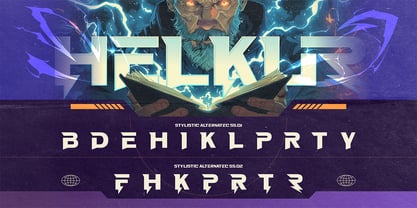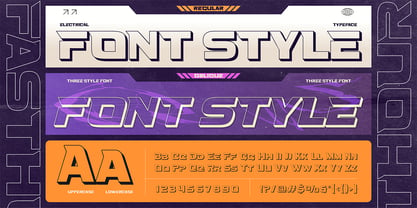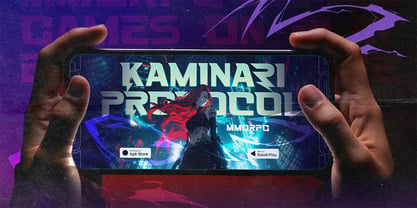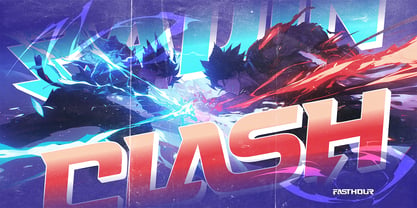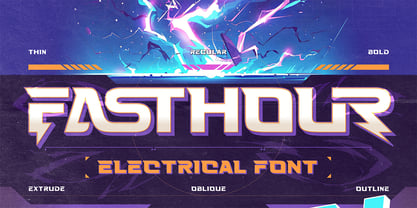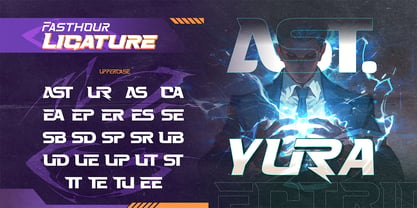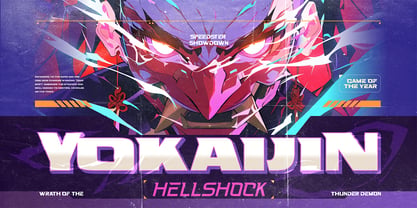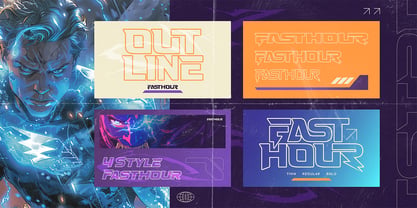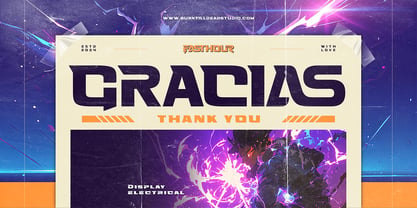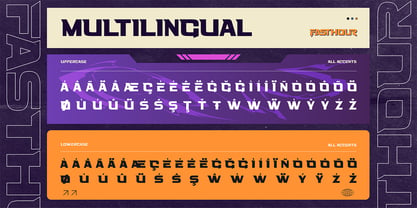
Fasthour
La familia tipográfica Fasthour fue diseñada por Eric Kurniawan y publicada por Burntilldead. Fasthour contiene 18 estilos y opciones de paquete familiar. Más información sobre esta familia
Fasthour is a high-energy display font inspired by electric power, speed, and motion. Its sharp cuts, angled forms, and bold structure create a dynamic look that feels fast, charged, and futuristic. Designed with multiple styles including Thin, Regular, Bold, Oblique, Outline, and Extrude, FASTHOUR gives you flexibility to build strong visual impact and layered typography. This font is perfect for tech branding, sports visuals, gaming graphics, posters, event titles, and bold digital content. If you need a font that feels powerful, modern, and electrically charged, Fasthour delivers the energy your design needs. Features: A - Z set (Uppercase & Lowercase All Caps), Number, Punctuation, Alternates, Ligatures, Multilingual